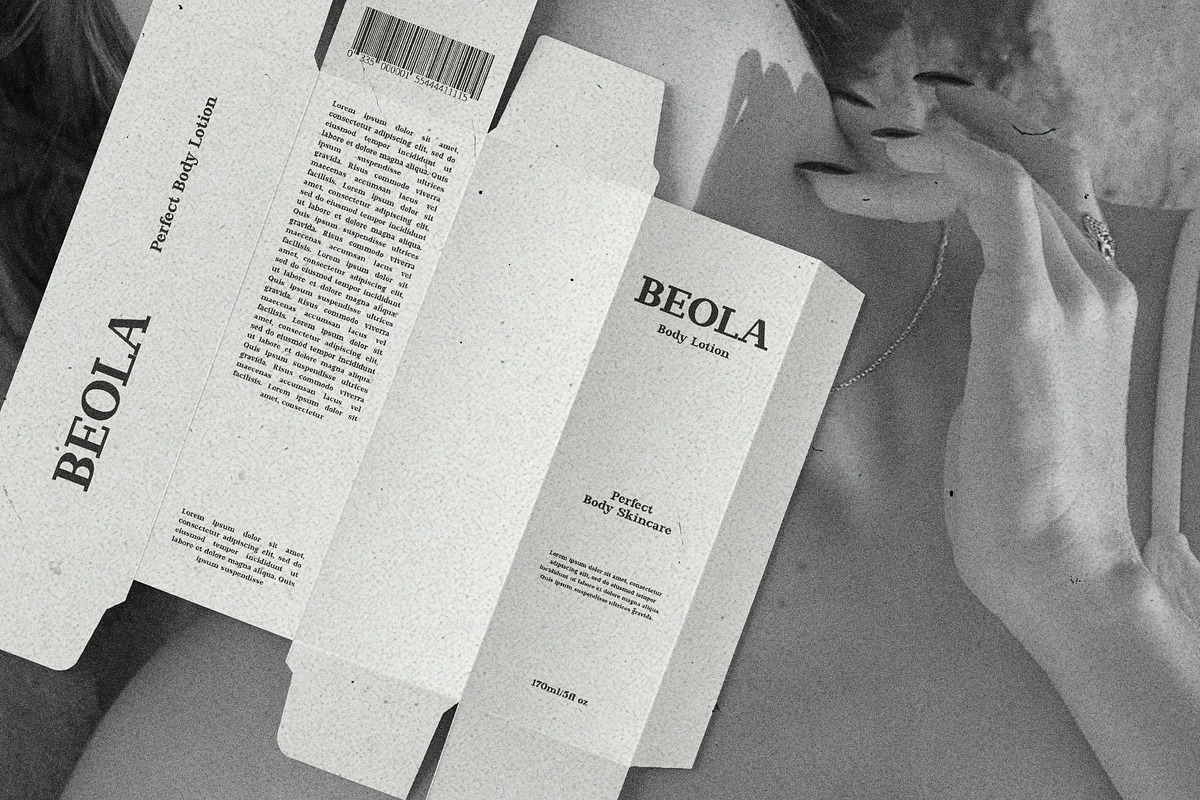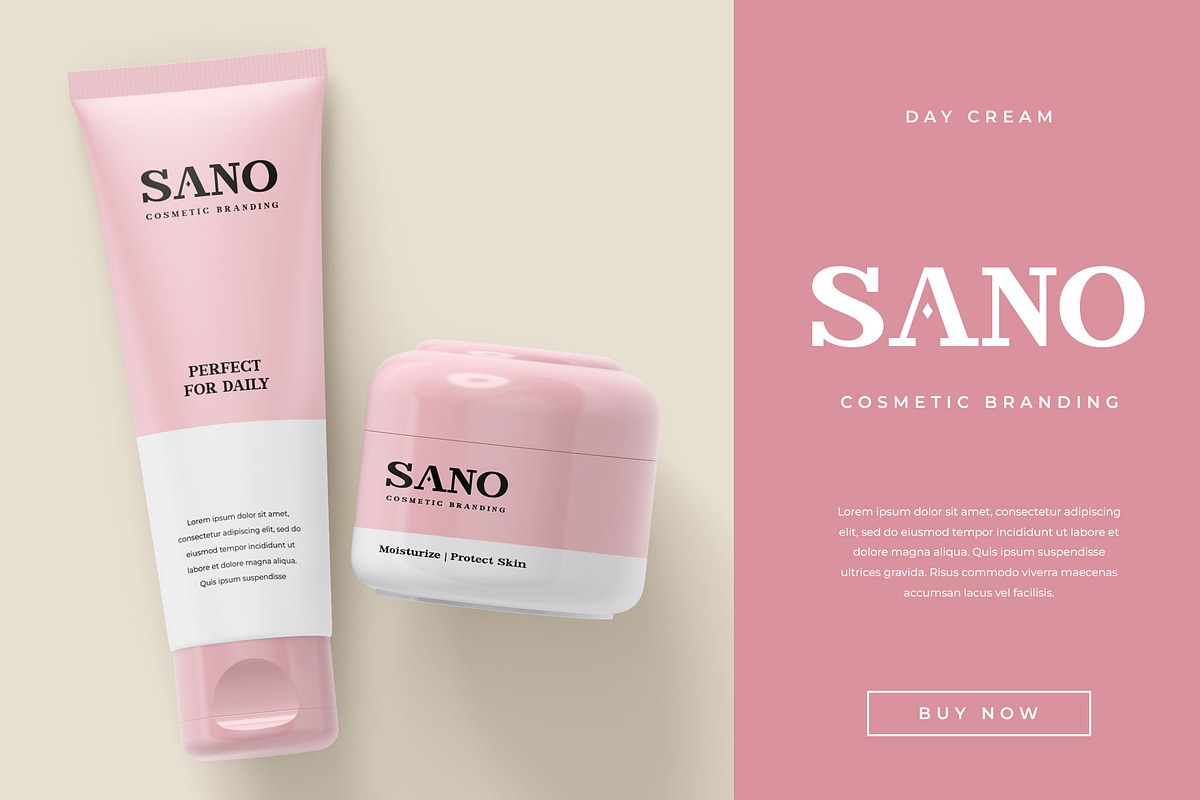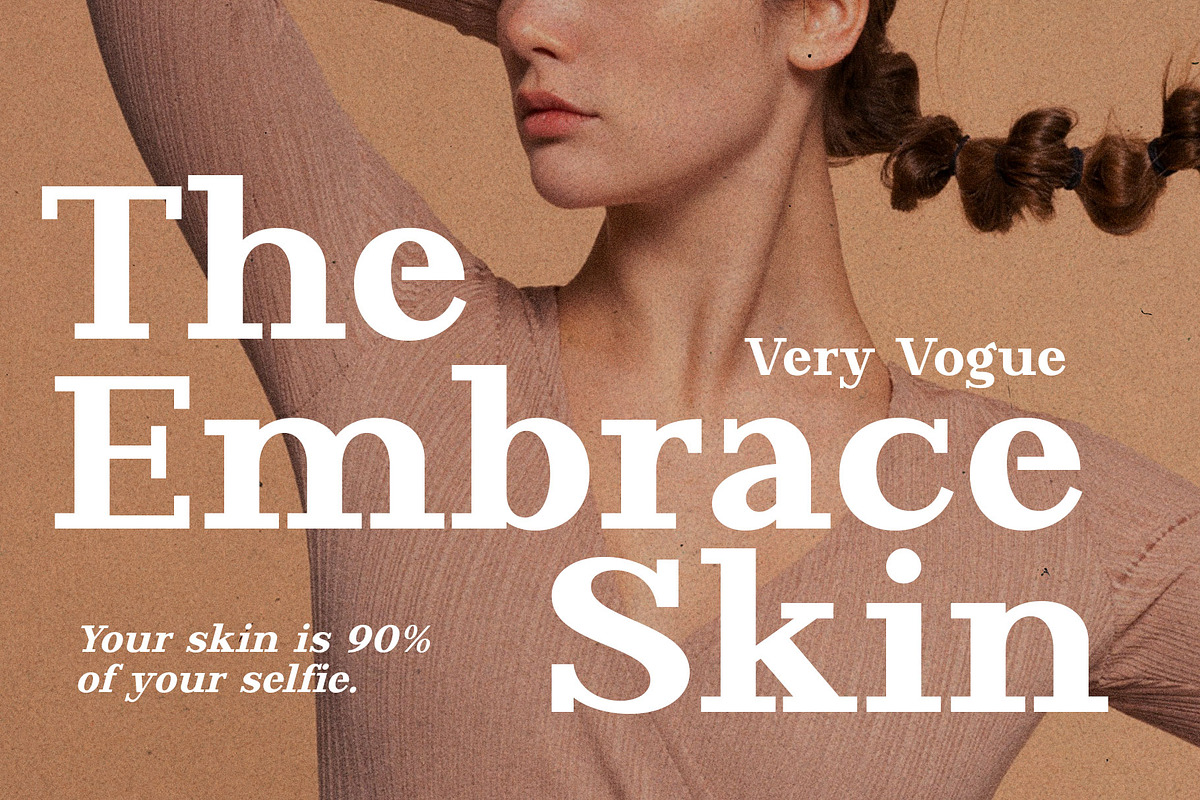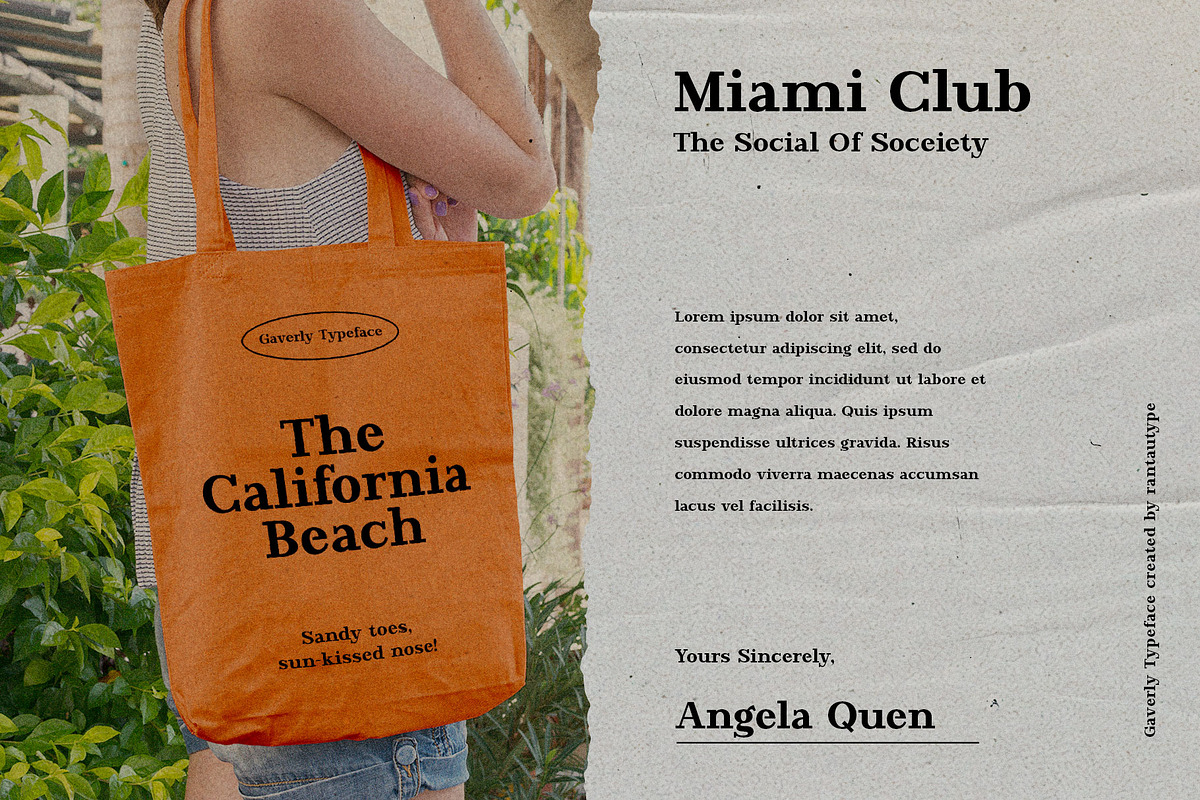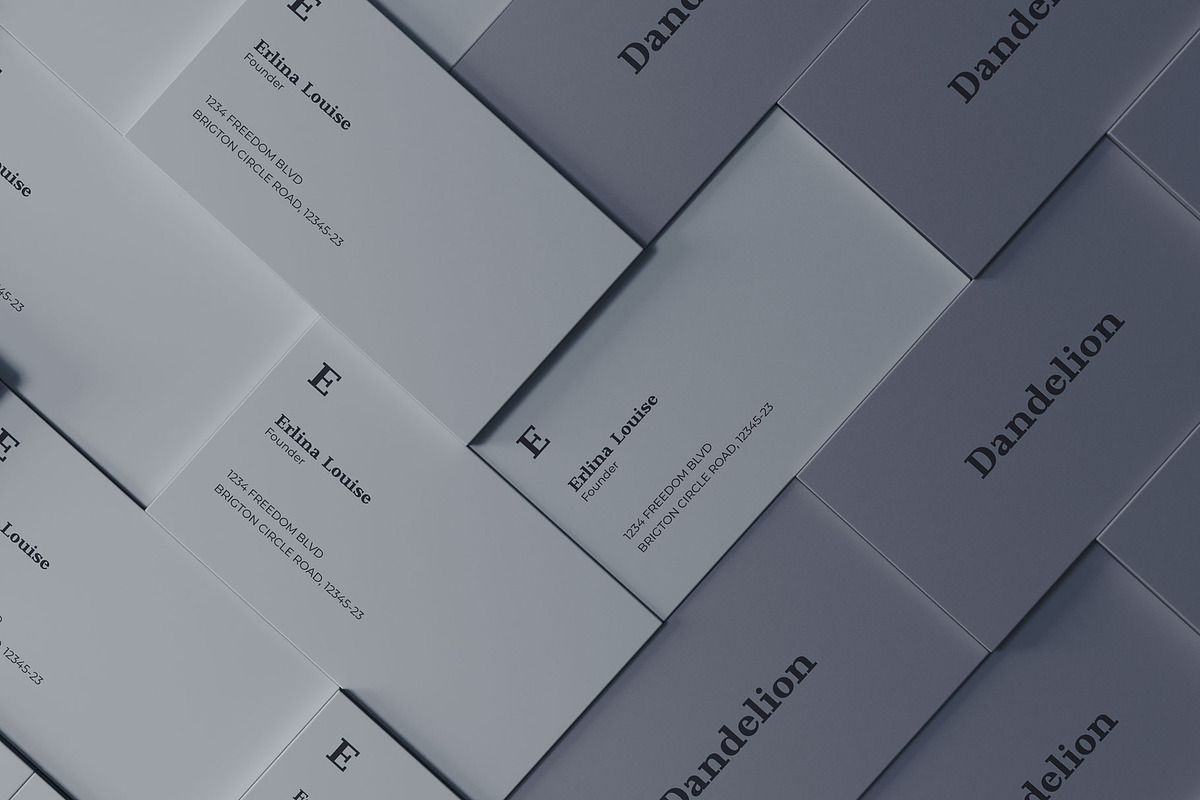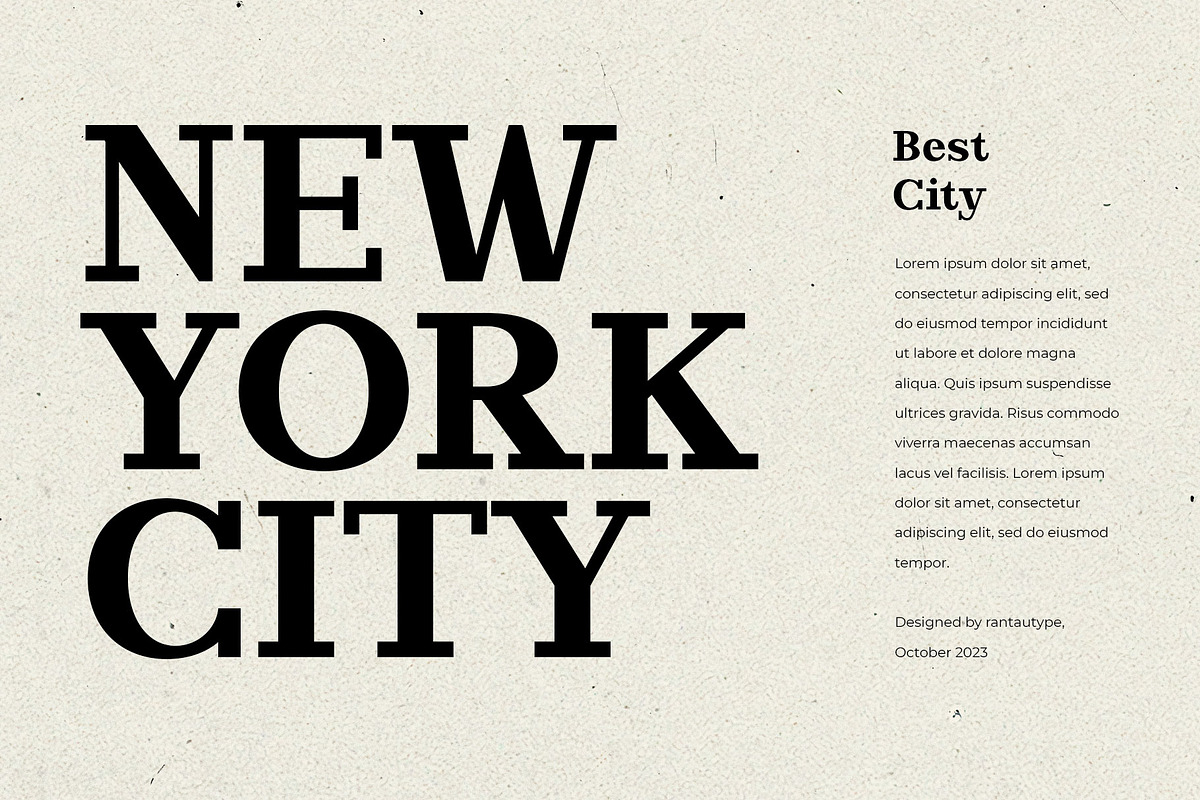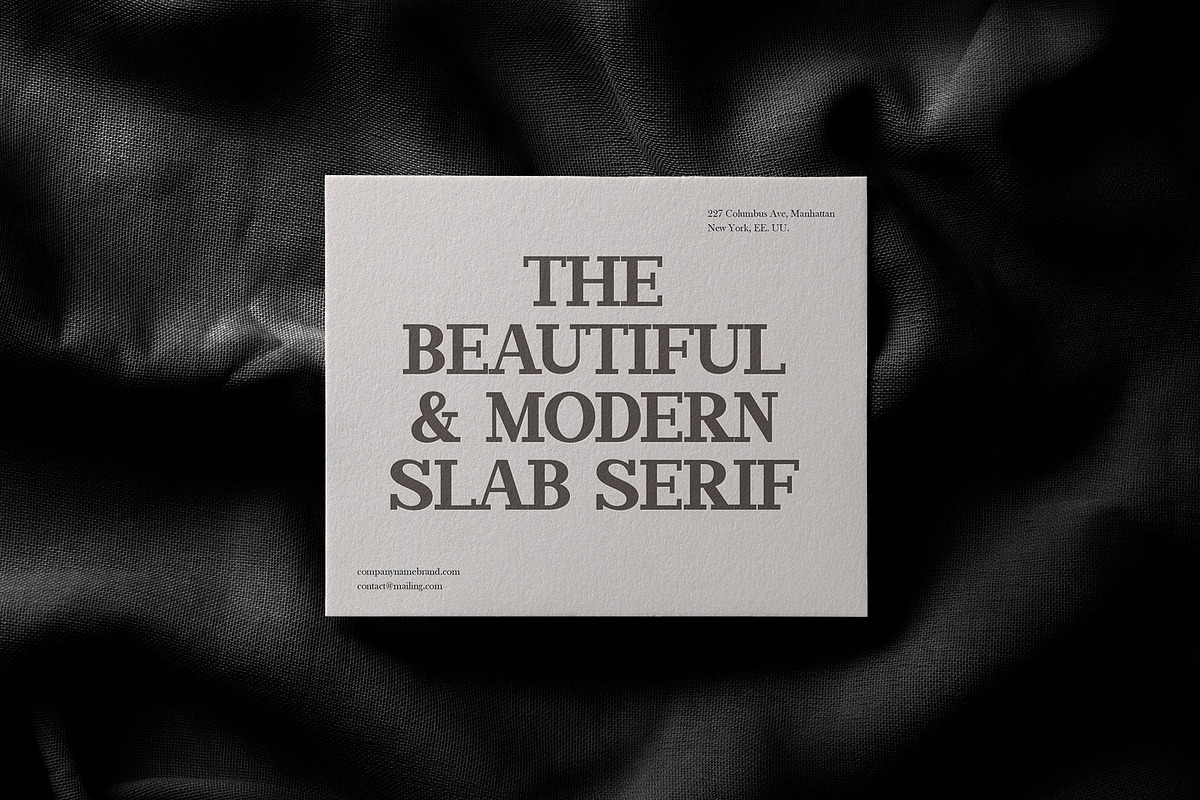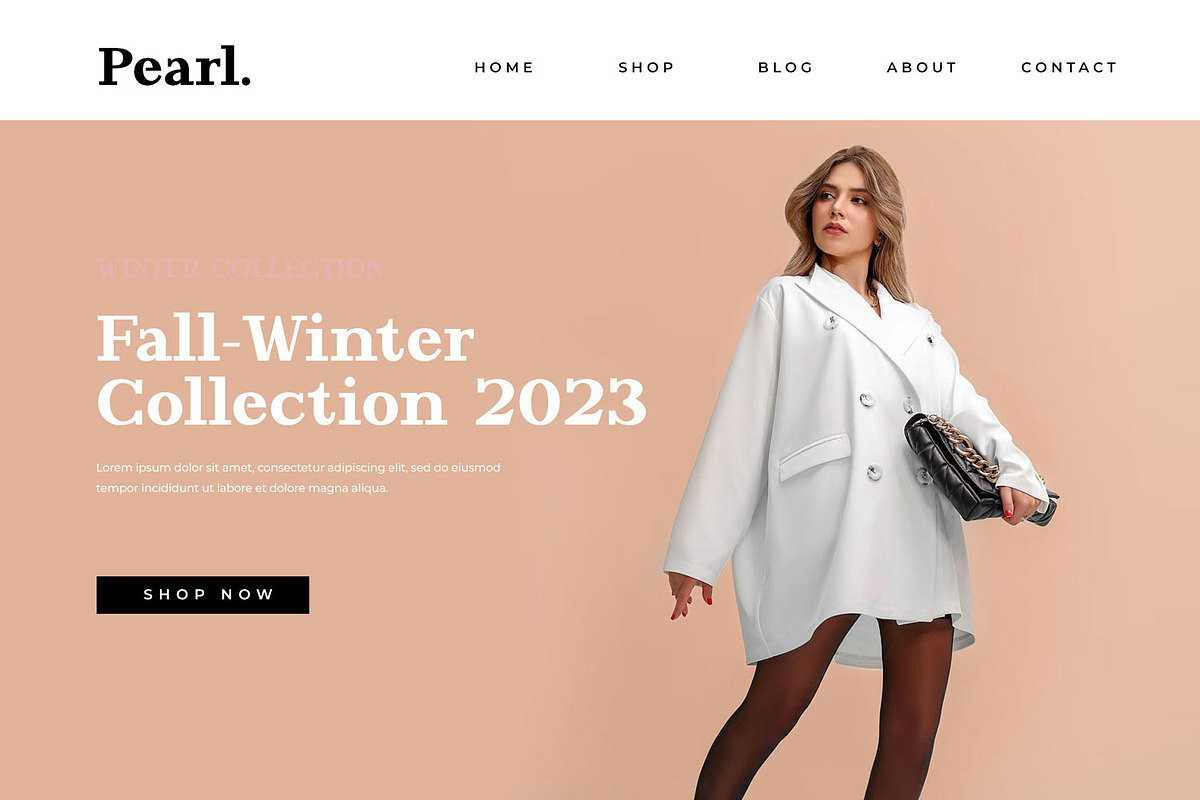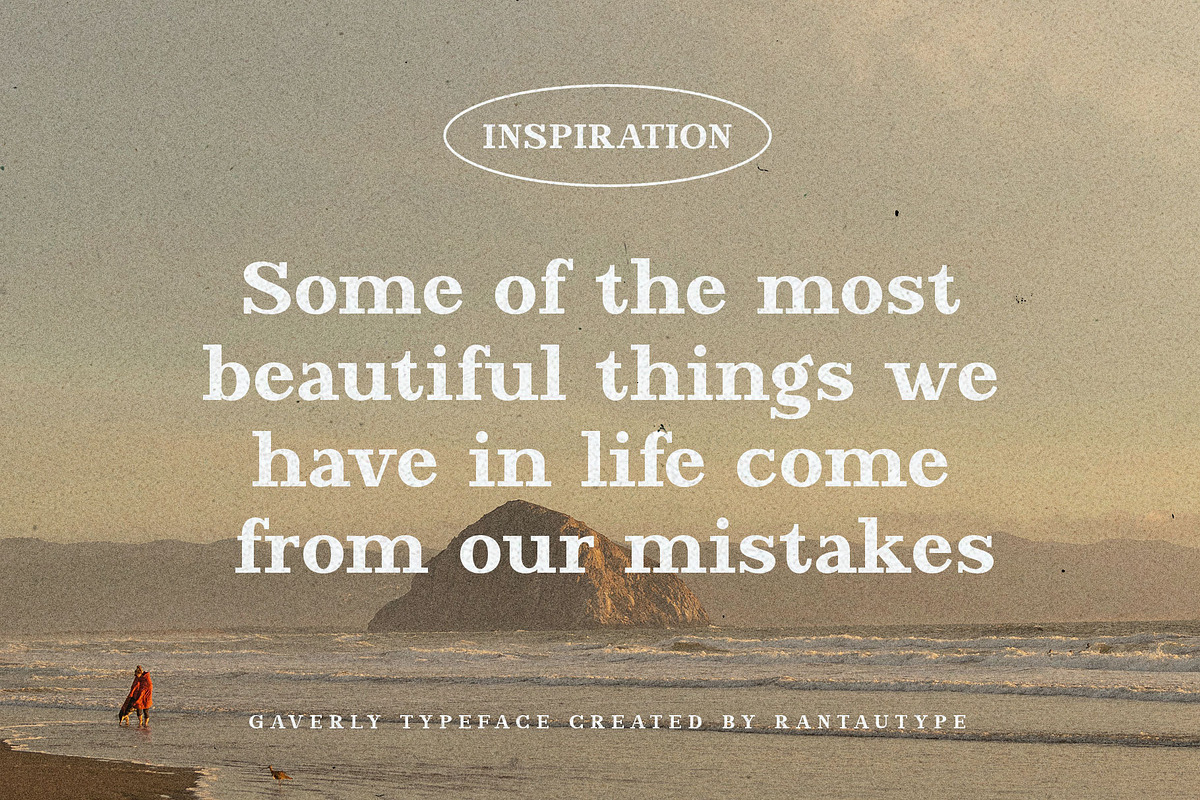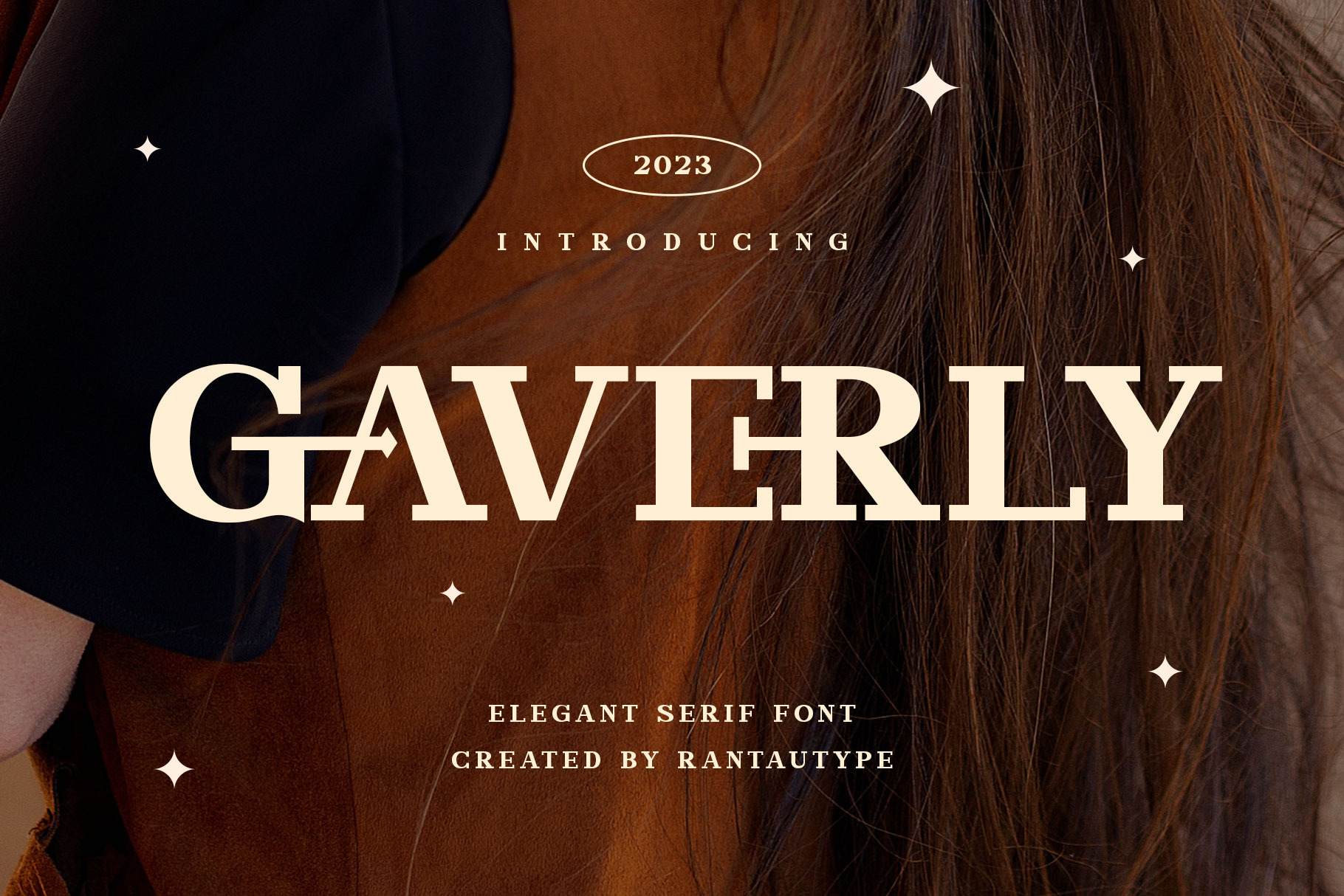
Gaverly Elegant Slab Serif Font
Hi Ladies and Gentleman ! Proudly present a elegant ligature serif font “Gaverly”, by rantautype.
Gaverly - a elegant display slab serif with Sophisticated shape. We love how shape it look make it professional. We keep this font looks fashionable, elegant, luxury, premium, modern, catchy and easy to use. Gaverly come with two font ( reguler and italic ), alternate, ligature and multinggual accent support.
Gaverly is beautiful choice for any creative endeavor to make perfectly suitable for creating elegant, chic, lifestyle design such as logos, title, cover, branding, display and magazine, corporate, business project, wedding project, advestising project and much more. Now you can choice Gaverly to make your project stand out!